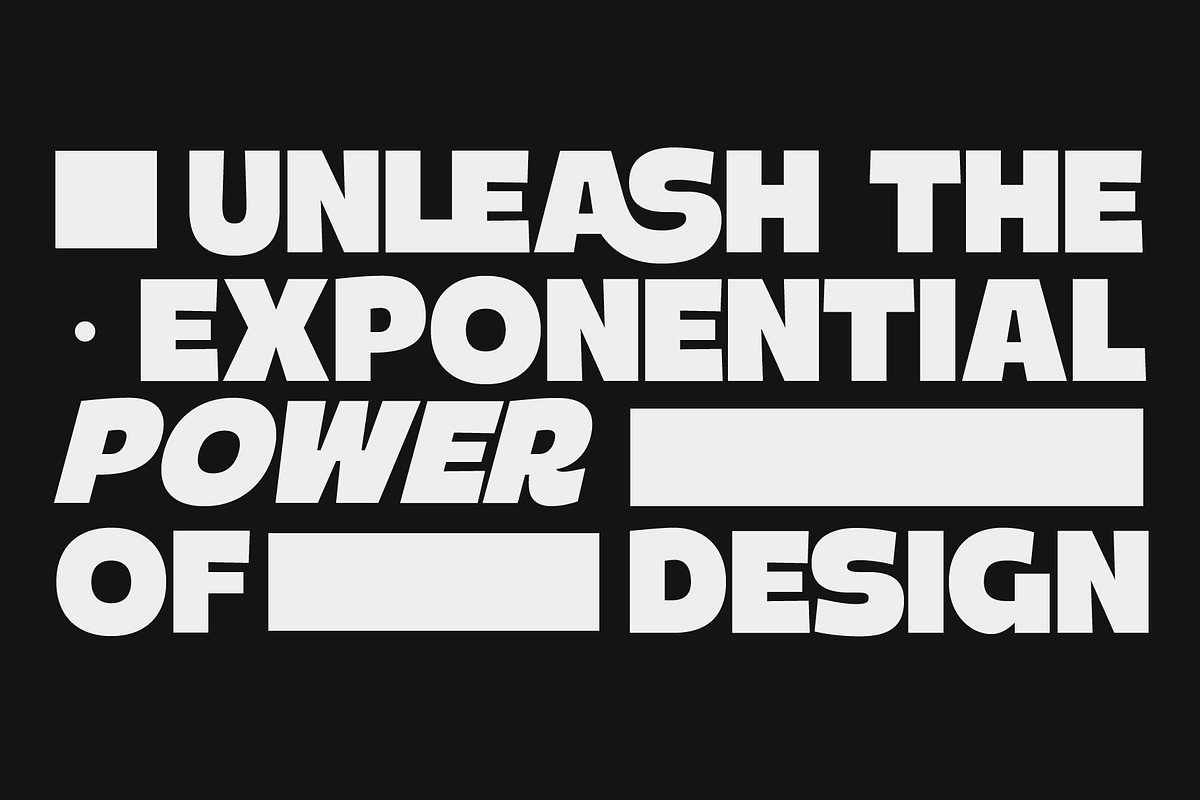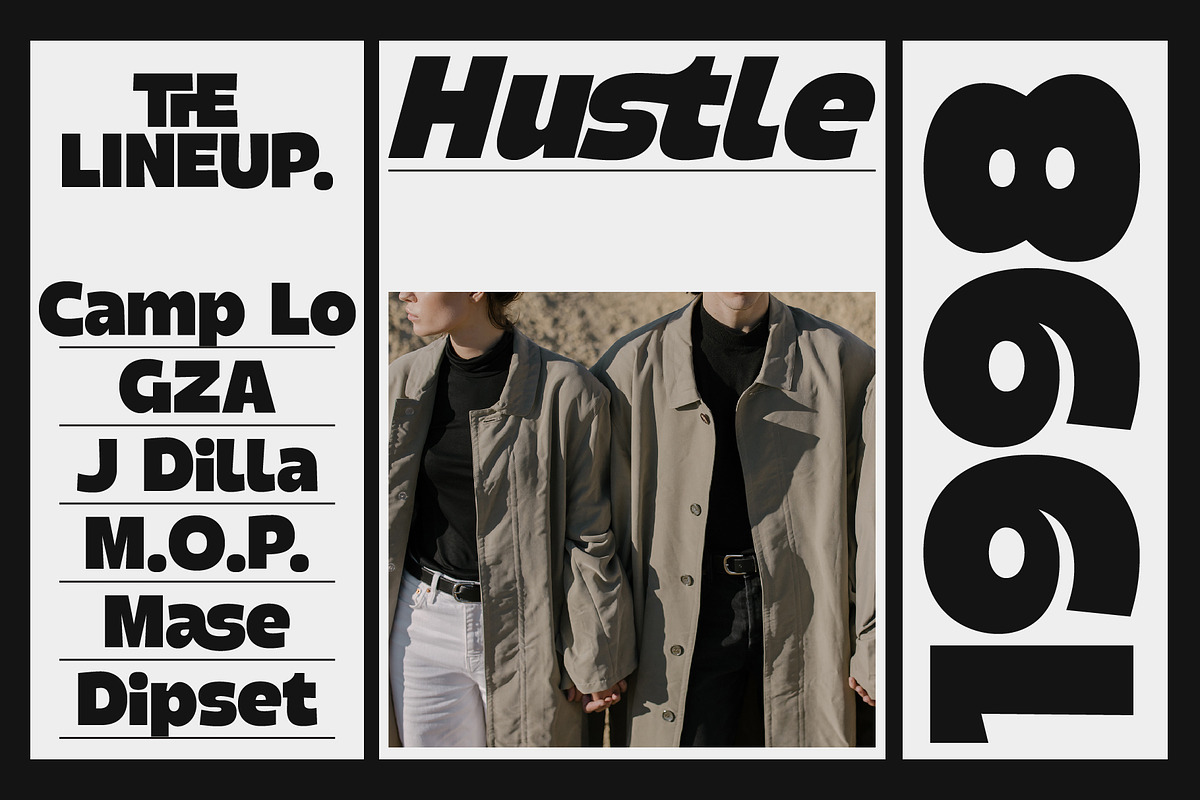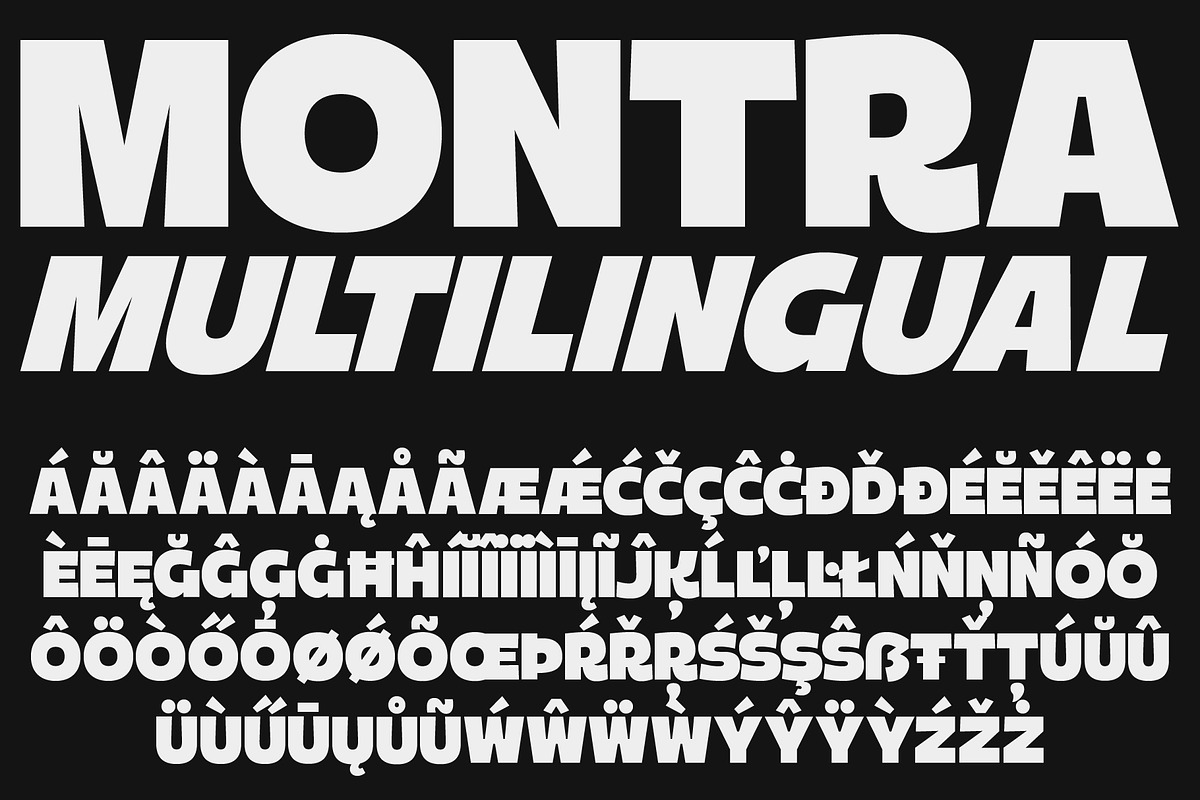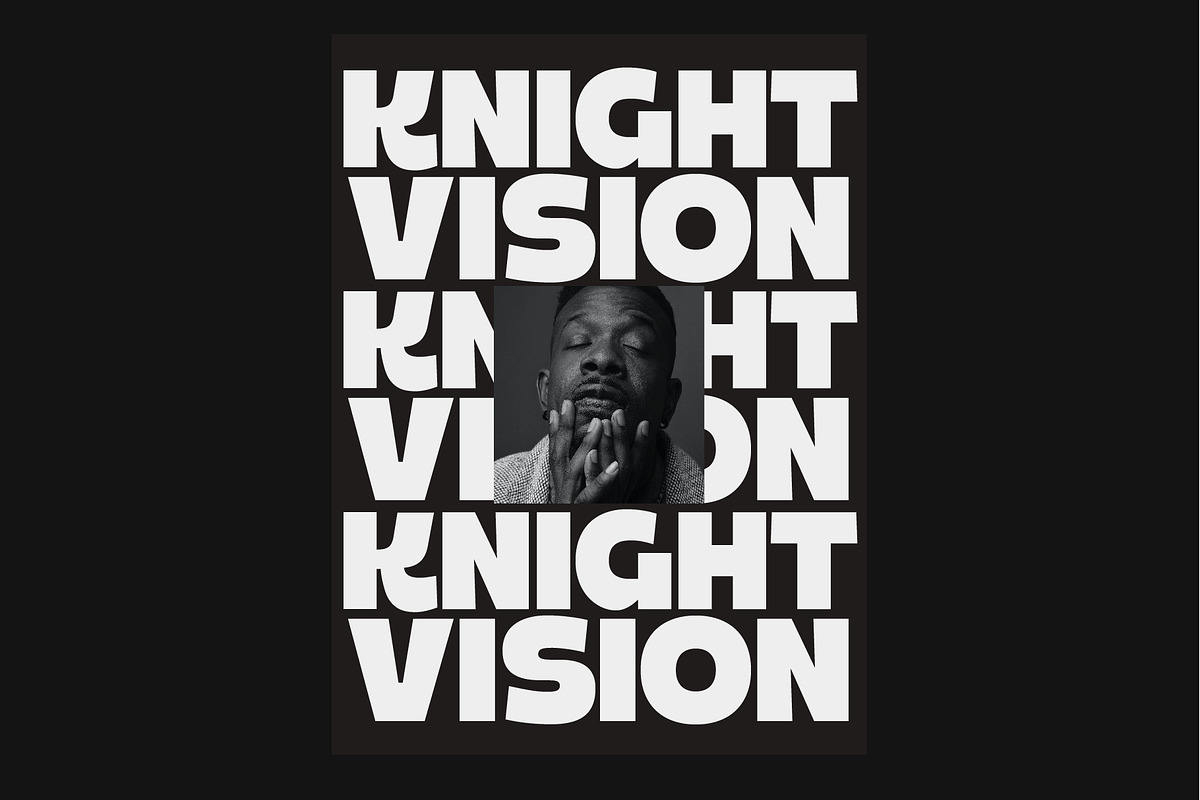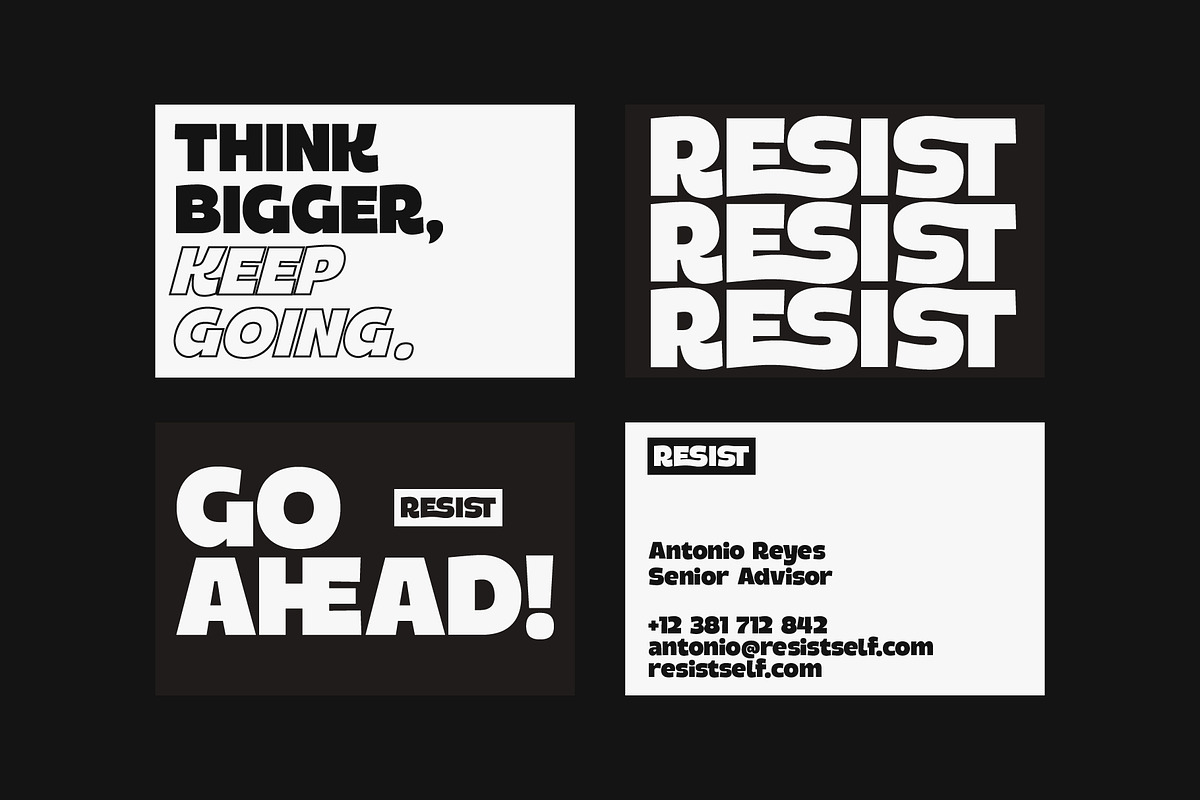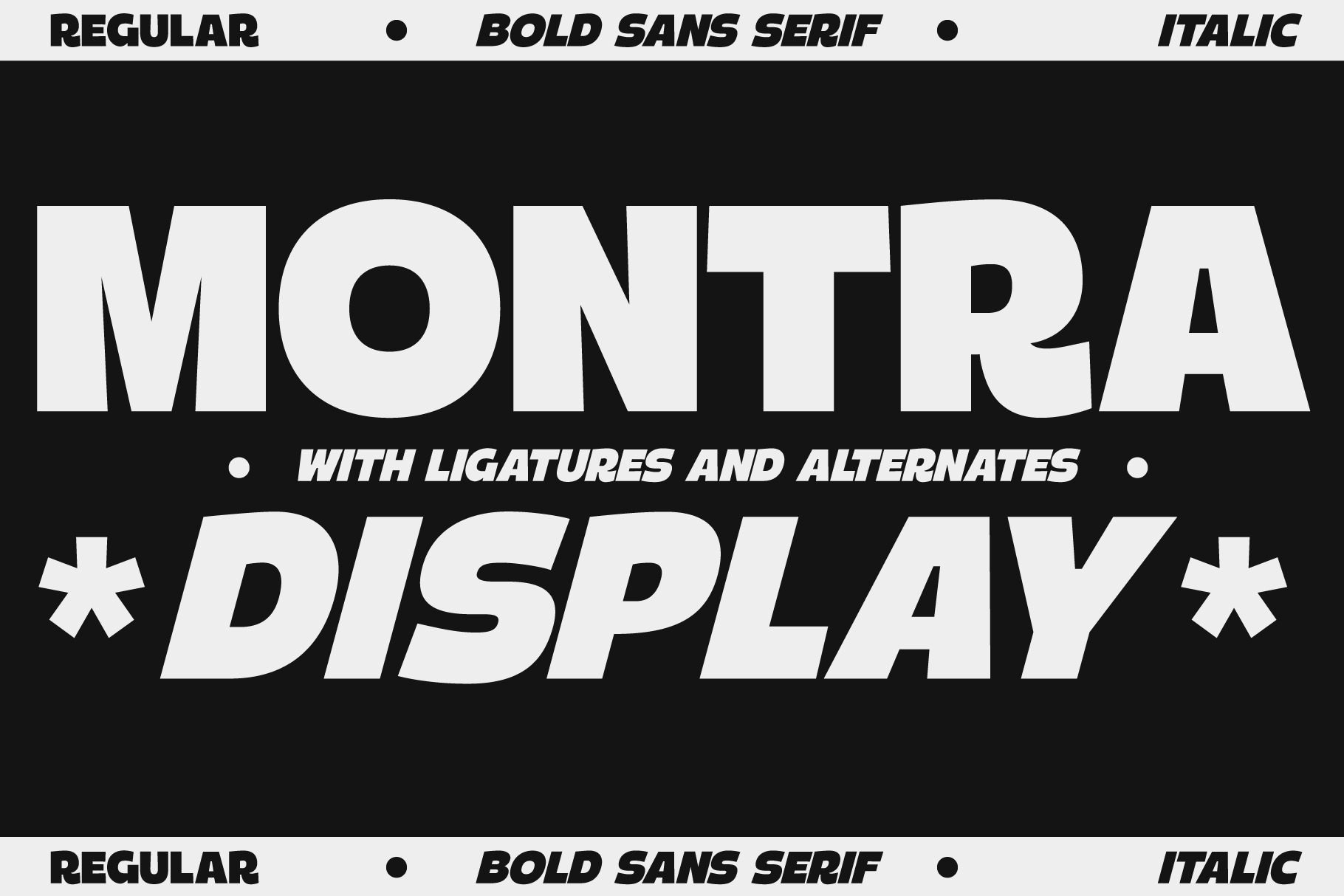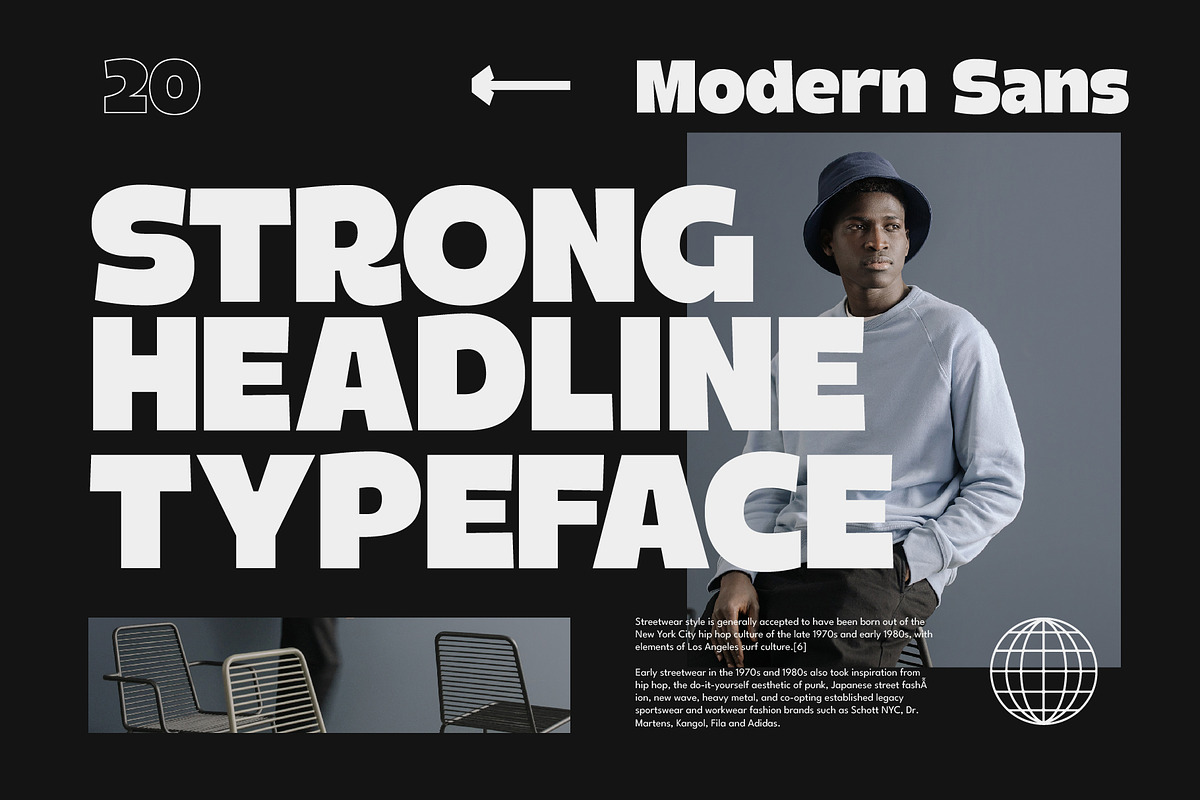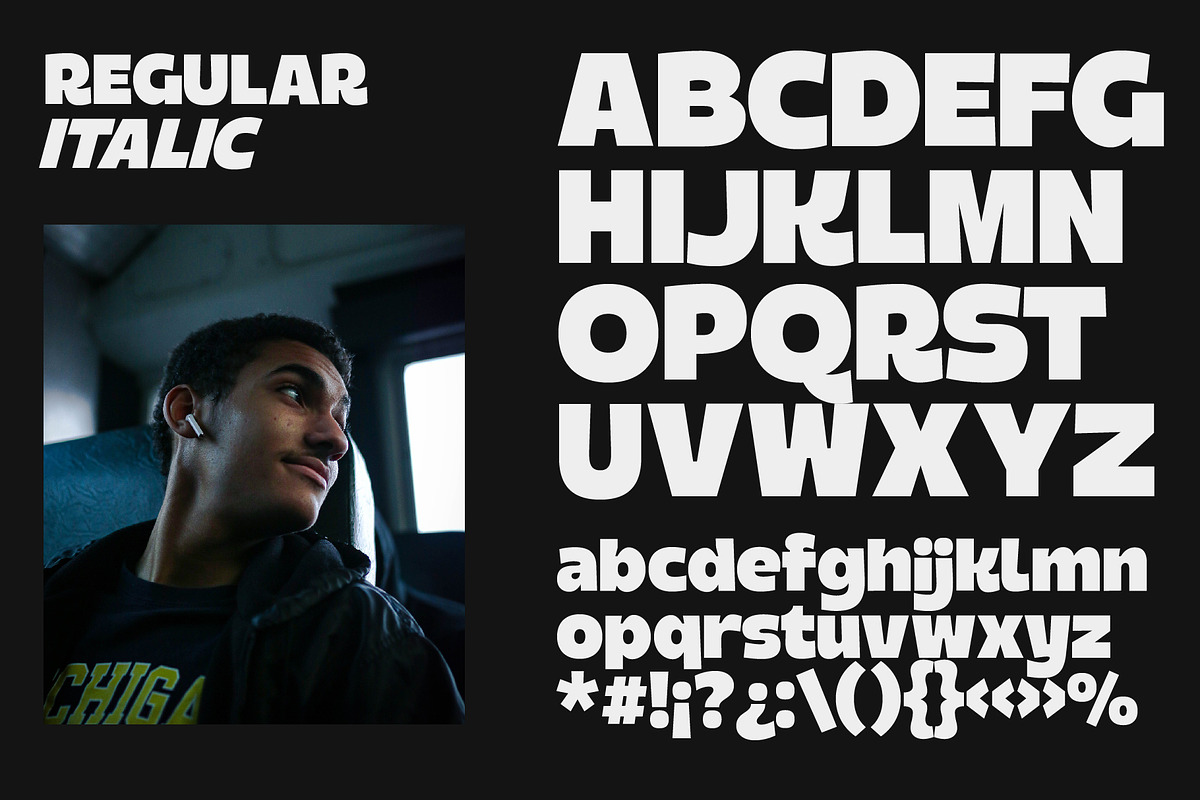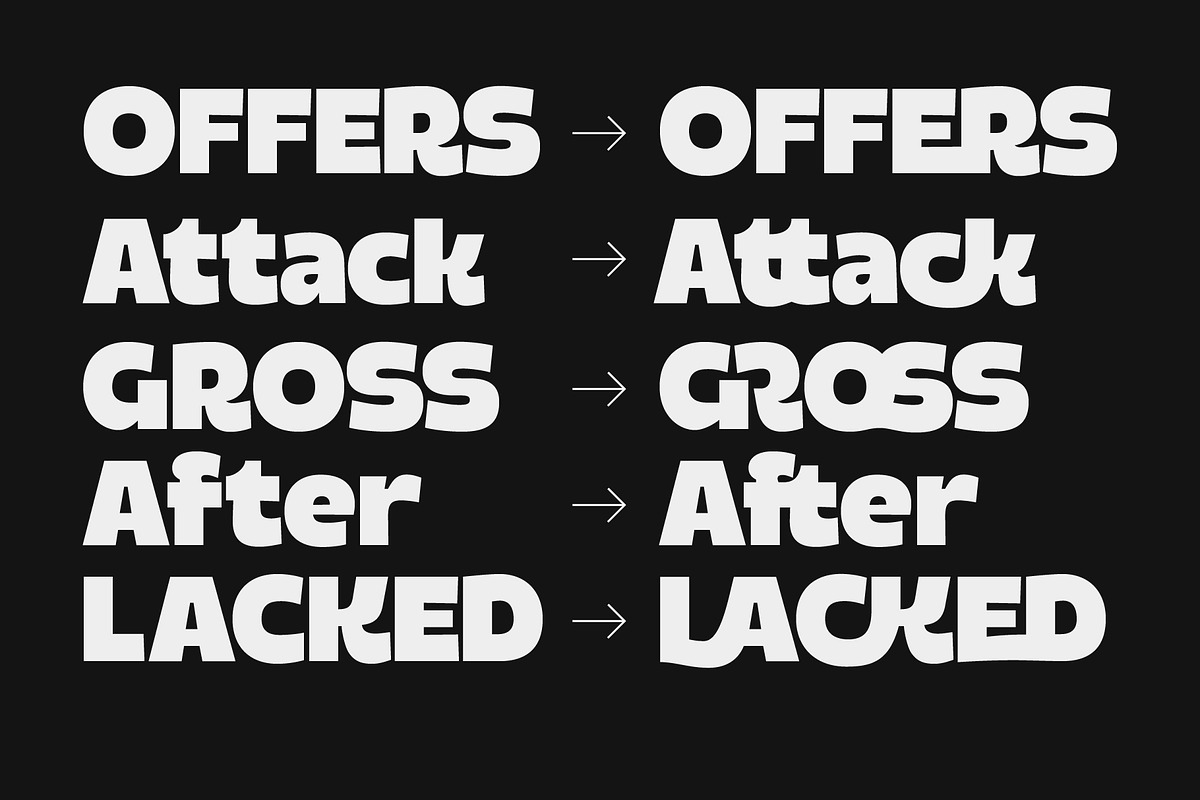
Montra - Bold Sans Display Font
Montra is a striking & bold sans serif display font that is perfect for making a big impact!
This product is filled with alternate characters & ligature options which makes it the perfect choice for a variety of work like branding projects, advertising & marketing, web design & so much more.